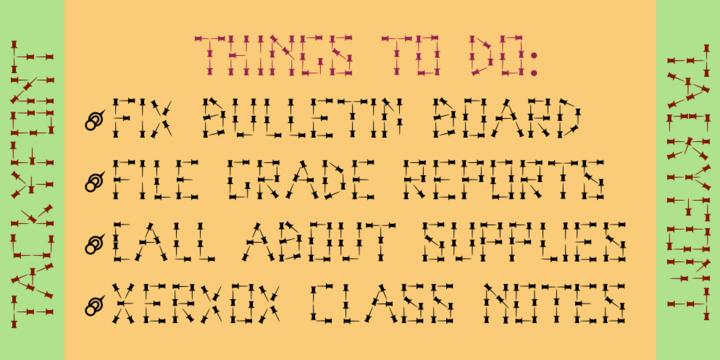
Tacky Font™
by Ingrimayne Type
Four letters for this font came from a puzzle in a 1983 Games magazine. After seeing them, I could not resist the temptation to do a complete set of letters made from push pins or tacks, a truly tacky font.
Most of the letters on the lower case keys are alternatives--choose the one works best for your purposes.